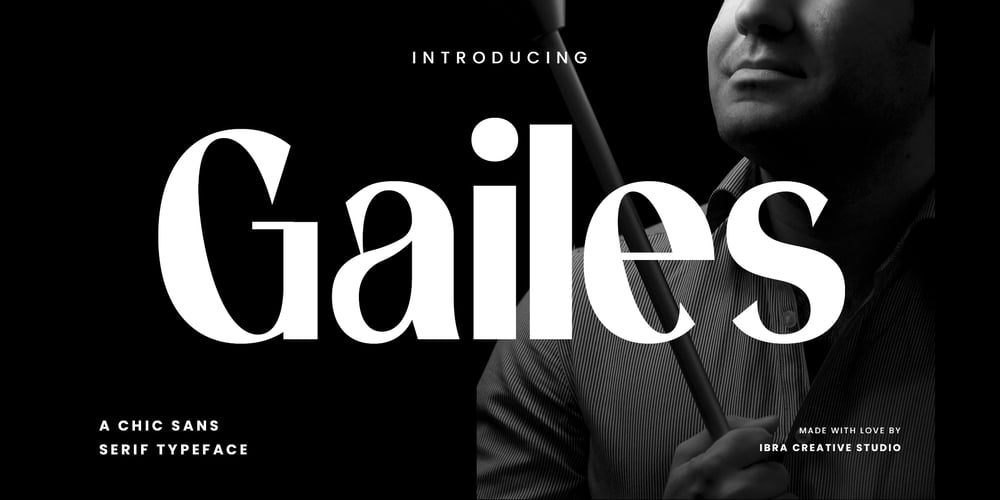
Gailes Font Family was designed by Roisatul Azizah and published by IbraCreative. Gailes contains 1 styles and family package options. Gailes – A Chic Sans Serif TypefaceGailes, a chic sans-serif typeface, effortlessly blends modern sophistication with a touch of timeless elegance. Its clean lines and well-balanced proportions create a sleek and contemporary aesthetic, making it a versatile choice for a wide range of design applications. Whether used in editorial layouts, branding projects, or digital interfaces, Gailes adds a refined and polished look to any composition. The font’s subtle details and stylish simplicity convey a sense of chic minimalism, allowing designers to achieve a sophisticated visual impact. Gailes stands as a testament to the beauty of sans-serif typography, offering a harmonious blend of style and readability that elevates the overall design experience. Gailes is perfect for branding projects, logo, wedding designs, social media posts, advertisements, product packaging, product designs, label, photography, watermark, invitation, stationery, game, fashion and any projects.Fonts include multilingual support for; Afrikaans, Albanian, Czech, Danish, Dutch, English, Estonian, Finnish, French, German, Hungarian, Italian, Latvian, Lithuanian, Norwegian, Polish, Portuguese, Slovak, Slovenian, Spanish, Swedish.